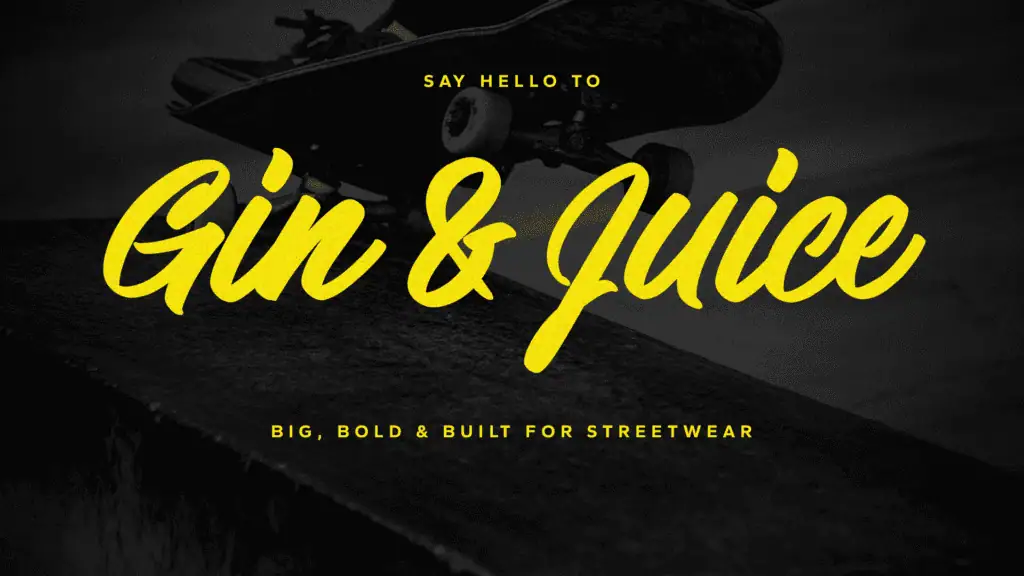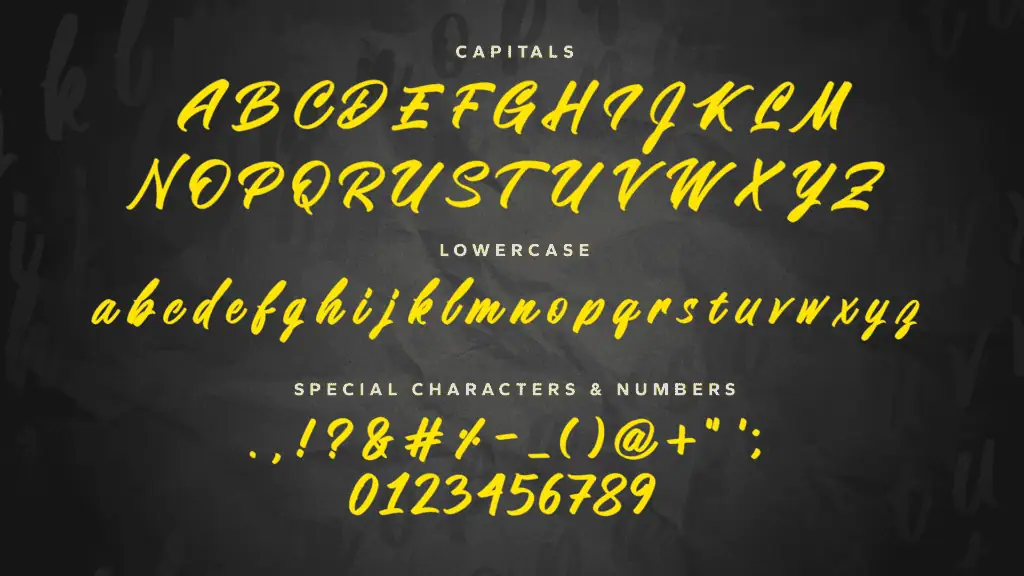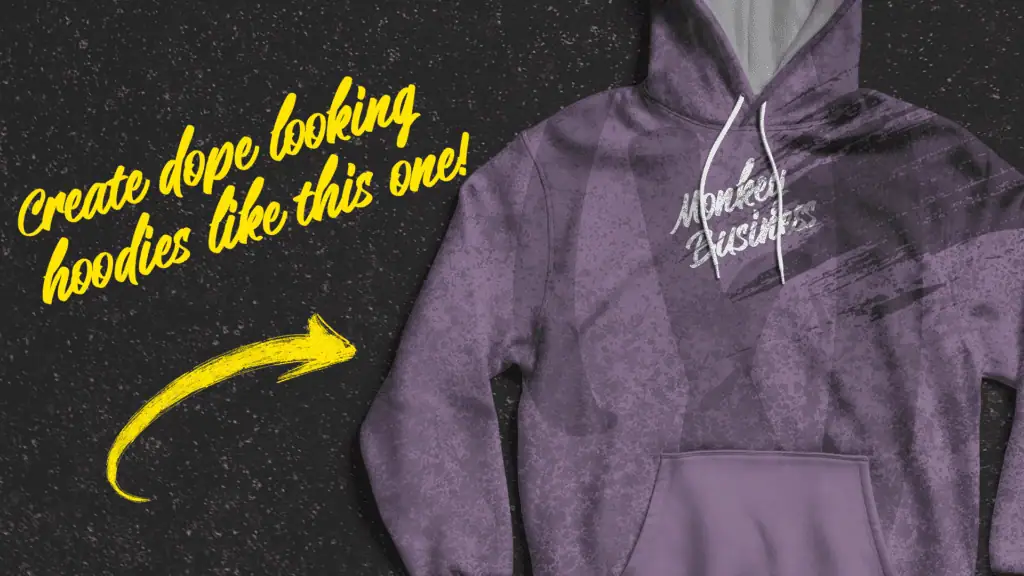
Have you ever thought about selling a font? Whether you’re a lettering artist or just someone who loves creating, turning your handwriting into a sellable font can be a fun and profitable side hustle. And with apps like Fontself, creating and selling fonts online has never been easier.
In this guide, I’ll walk you through how I created my font Gin & Juice using Fontself and how I’m planning to sell it on platforms like Creative Market and my website. If you’ve ever wondered how to create fonts to sell or where to sell fonts — this is the perfect place to start.
Why Fontself?
Fontself is an app that allows you to turn your handwriting, calligraphy, or lettering into a fully functional font — right from your iPad. It was already a great tool, but the latest updates make it even better for those looking to start creating and selling fonts.
What’s New in Fontself:
✅ Nib editing and anchor point adjustment – Perfect for fine-tuning letter shapes and strokes.
✅ Manual letter spacing and kerning – This is huge for getting clean, professional-looking spacing.
✅ Font templates – Save and share templates (hopefully, you’ll be able to sell font templates in the future too!).
✅ Font installs – You can now use your fonts directly on your iPad.
✅ Background images – Makes aligning your letters much faster and more accurate.
✅ Font info and metadata – Essential for selling your fonts professionally.
Step 1: Define Your Creative Direction
Before you start creating a font, you need to figure out the style and market you’re aiming for. If you’re serious about selling fonts, you need to think about who will buy it and how they’ll use it.
I wanted Gin & Juice to have a smooth yet rough streetwear vibe — something that feels urban but still clean enough for branding and design work. Think skate culture meets high-end streetwear.
One of my favorite platforms to search for inspiration is Pinterest. I think it’s one of the best visual search engines out there.
💡 Pro Tip: Research fonts in your target market. Look at successful fonts on platforms like Creative Market and MyFonts. Notice which styles are trending and how designers are using them.
Once I had a clear vision, I wrote down some creative notes to help me stay focused during the design process. I need some creative constraints otherwise I struggle to stay focused on one thing.
Step 2: Sketching the Letters
Next, I sketched out the basic letterforms using Procreate.
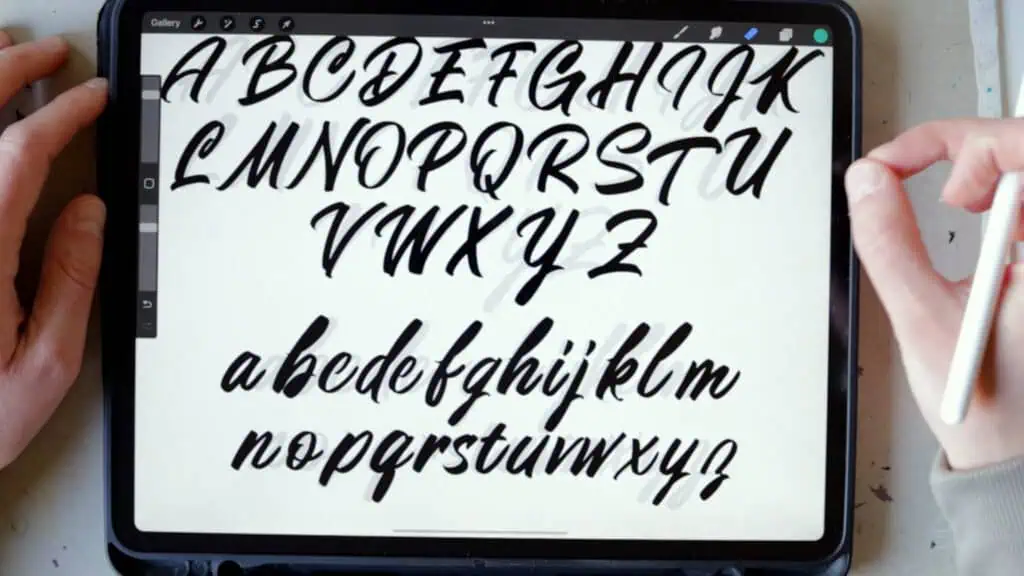
To speed up the process, I took a screenshot of the Fontself interface and aligned my sketches with the app’s grid.
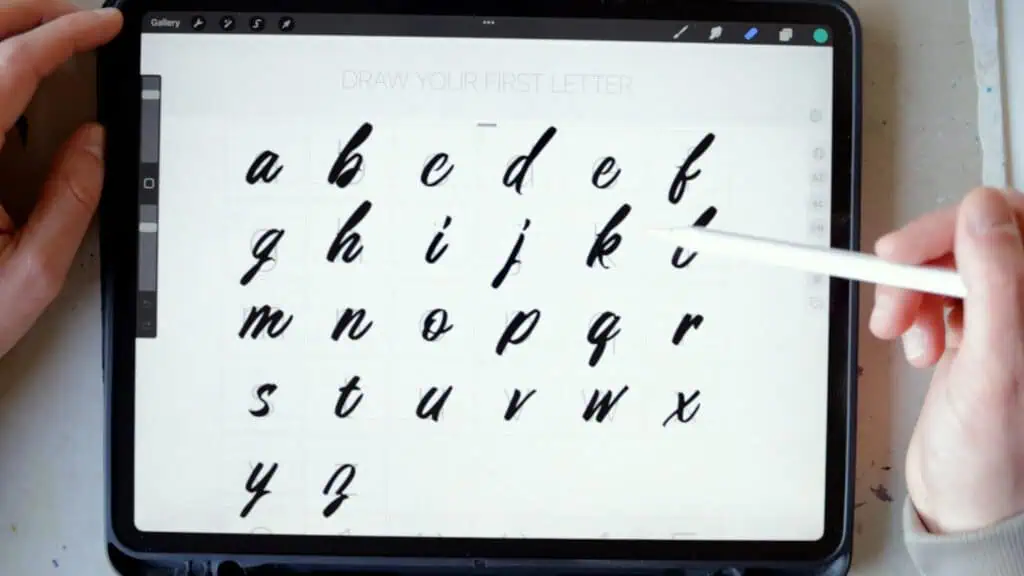
This helped me keep the spacing and sizing consistent — which is super important if you’re planning on selling a font.
Step 3: Creating the Font
Once the sketches were ready, I uploaded them into Fontself and started turning them into a working font.
👉 I used Fontself’s background image feature to align everything perfectly.
👉 I selected the brush, adjusted the settings, and carefully traced over each letter.
👉 After that, I went through the whole alphabet — adjusting where necessary — until the font started to feel cohesive.
This part takes some time, but the cleaner your base font, the easier it will be to fine-tune all the details at the end.
Step 4: Fine-Tuning the Details
After creating the full alphabet, it was time to refine the details. This is where Fontself’s new kerning feature really shines.
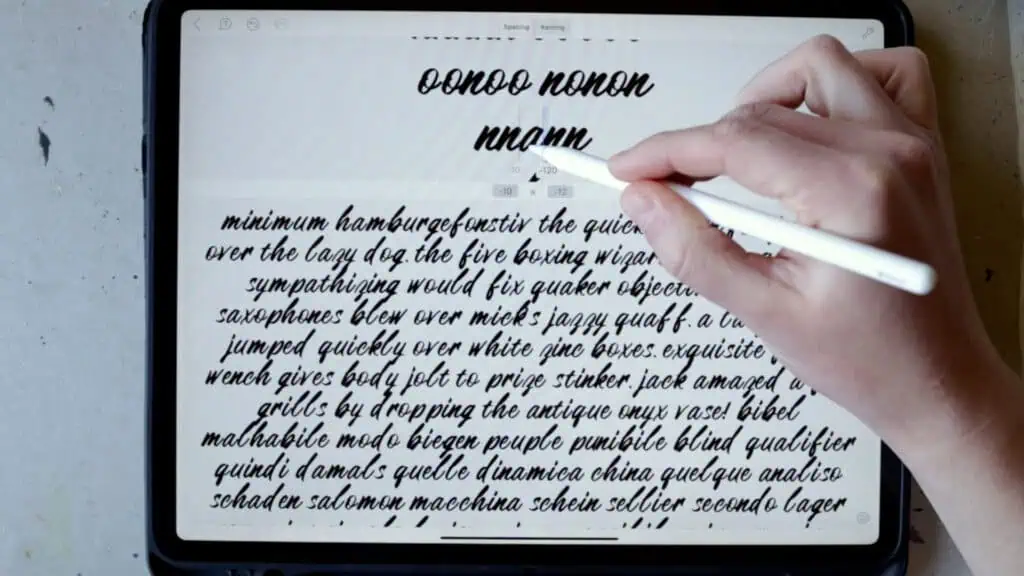
- I adjusted the heights and spacing to make sure everything flowed well.
- Since it’s a cursive-style font, I had to carefully fine-tune the connections between letters.
- Fontself’s new manual kerning update allows you to adjust each pair individually with a live preview — which honestly saved me so much time.
- Finally, I added font info and metadata — essential for when you’re planning on selling a font professionally.
Step 5: Selling the Font
With the font finished, it was time to figure out where to sell it. There are a bunch of great platforms where you can sell handwriting fonts — each with its own pros and cons.